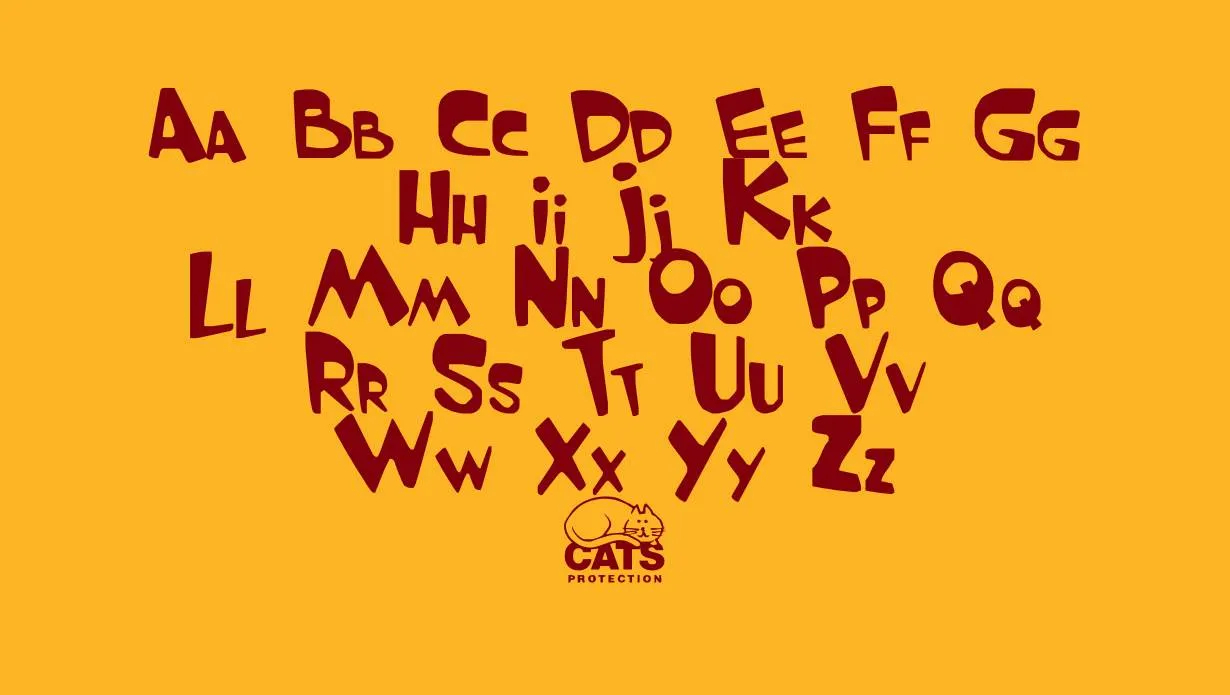
The Garfield Font is like a comic strip brought to life, full of playful characters that add a touch of humor to your designs. Whether you’re creating invitations or posters, this font brings a cheerful and animated vibe.
| Name | Garfield Font |
| Designer | Divide by Zero |